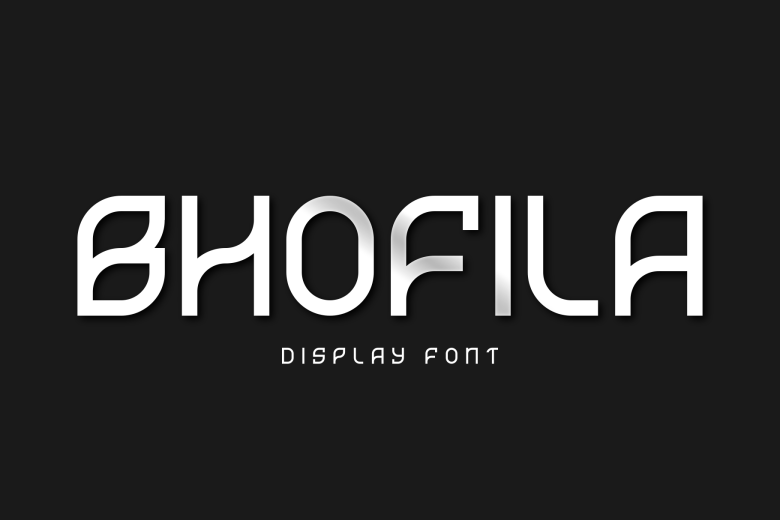
Bhofila Display Font Free
Bhofila Display Font is a new decorative geometric display typeface. Cleanliness and solid. Develop a visual presentation that complements the style and personality of the new typeface. Specifically designed for display use, great for titles, logotypes, monograms and short texts.